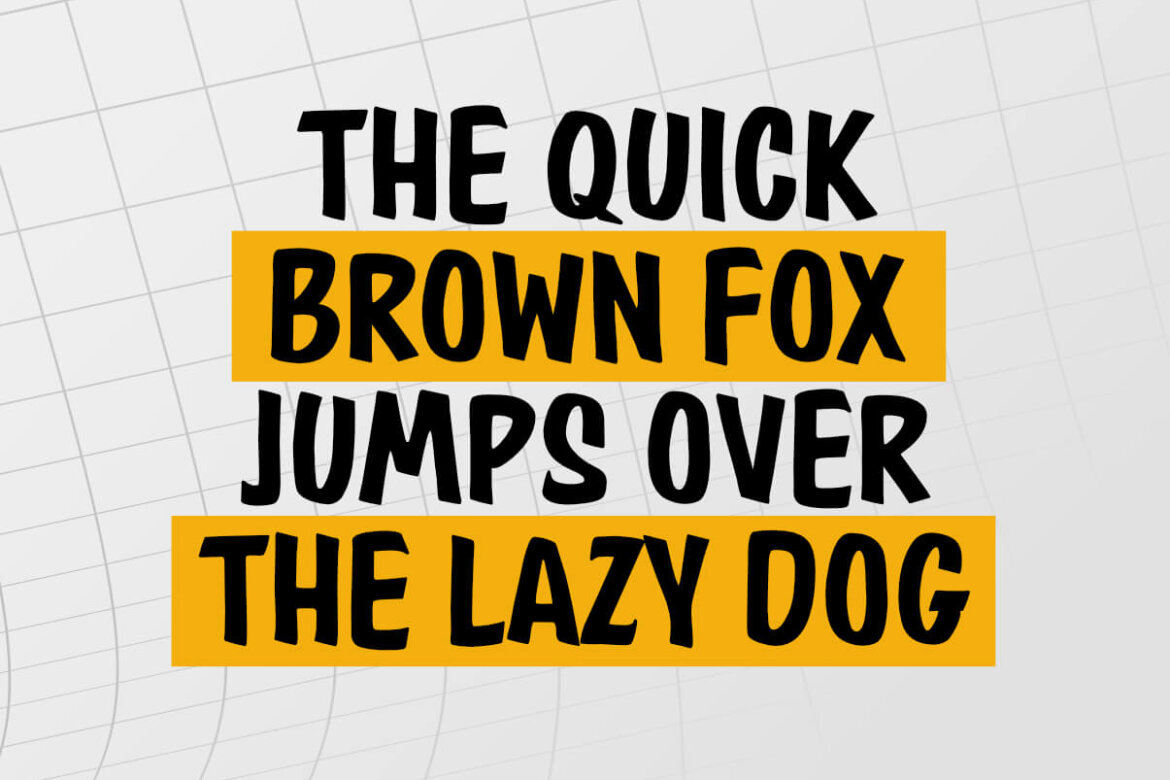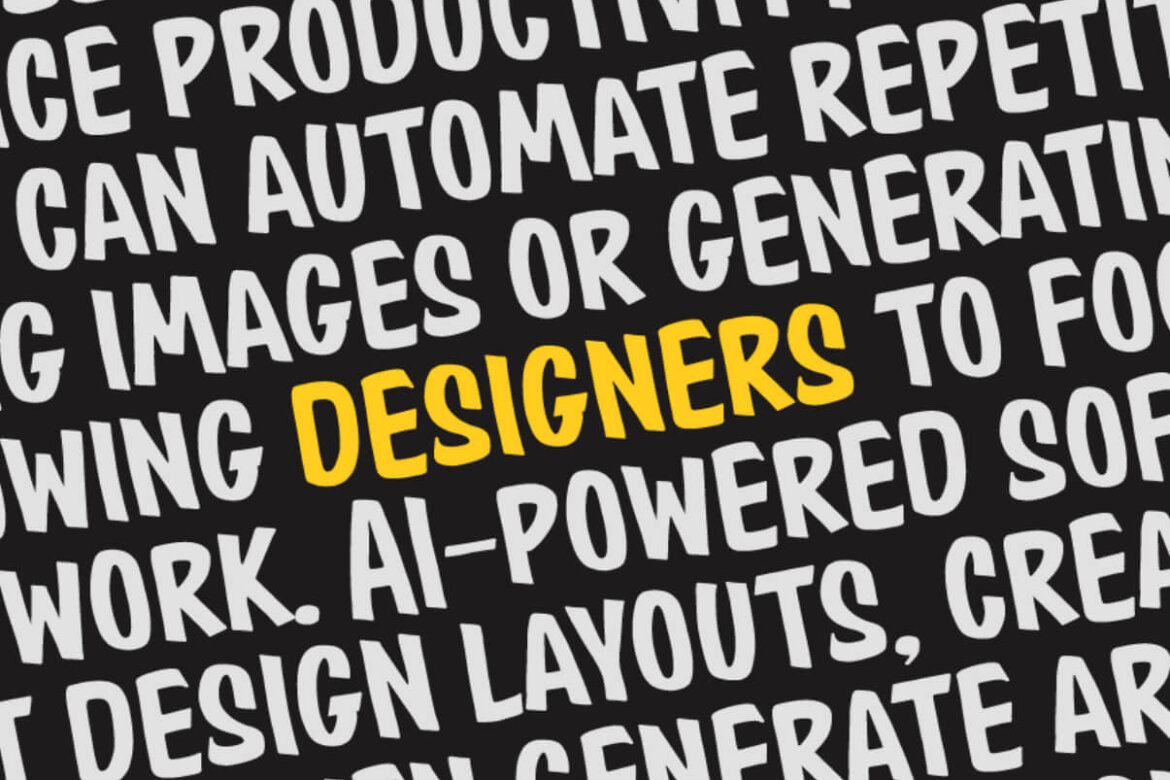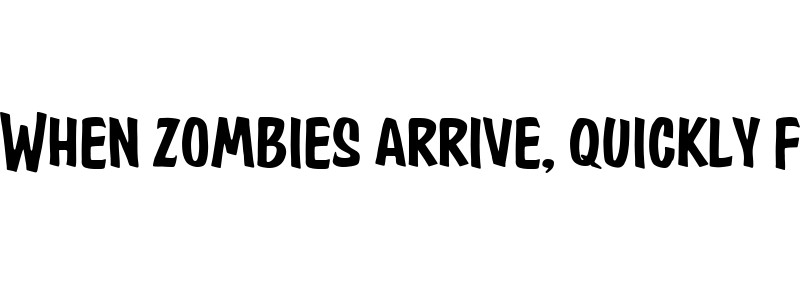
Marous – Handwritten Free Font
Marous Regular
Marous – Handwritten Display Font – Bold • Expressive • Natural •
Marous is a bold and expressive handwritten display font designed to bring a natural, personal touch to your creative projects. Inspired by casual handwriting with a confident stroke, Marous feels warm, playful, and authentic—perfect for designs that need character and human emotion.
This font works beautifully for quotes, posters, branding, social media graphics, packaging, merchandise, and creative headlines. Its imperfect handwritten style adds charm while remaining clear and eye-catching, making it ideal for both digital and print use.